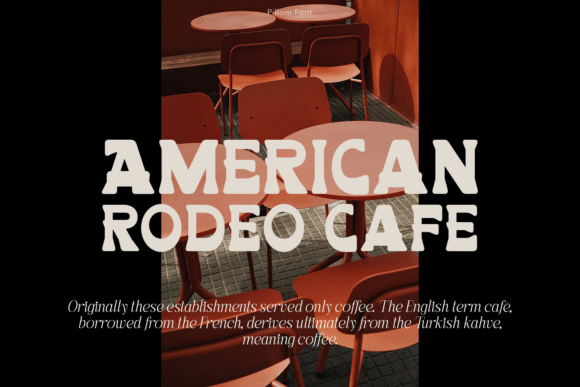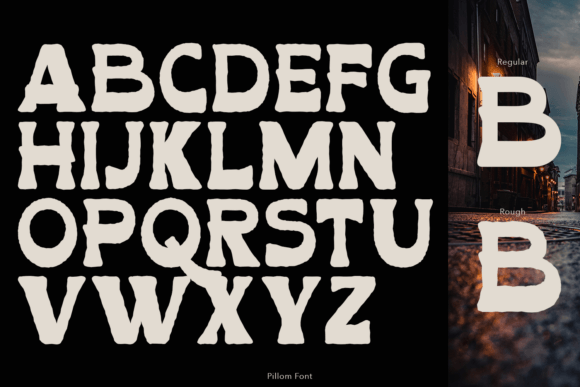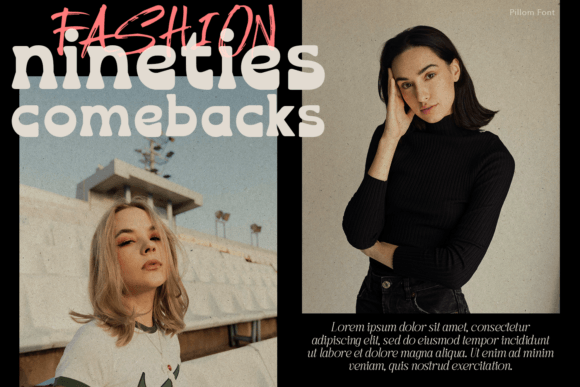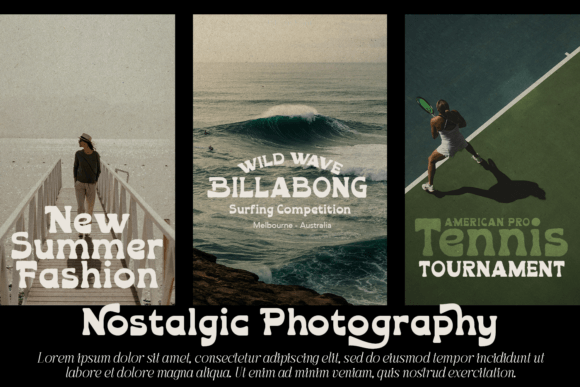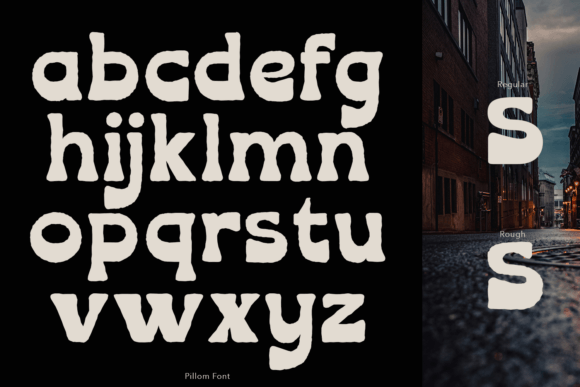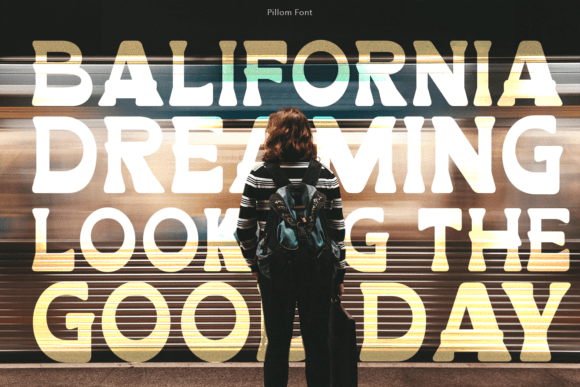
Introduction to Pillom Font
You know that moment when you’re working on a creative project, and you’re stuck searching for the perfect font to bring it all together? I’m sure many designers can relate. That’s where the Pillom Font comes in – a bold and playful vintage western typeface that’s sure to add a touch of authenticity to your design.
With its roots in the cowboy century, this font is perfect for designers looking to add a high-quality, retro feel to their projects. Whether you’re working on a design resource for a western-themed website or creating a poster for a country music festival, Pillom Font is an excellent choice. Plus, its transparent background makes it easy to layer with other design elements. And the best part? It’s available for a free download, making it a valuable resource for designers on a budget.
Key Features of Pillom Font
- Unique, modern design with a transparent background for flexibility
- Perfect for use in logos, branding, and other visual identity projects
- Includes a wide range of characters, including uppercase and lowercase letters, numbers, and punctuation
Honest Review: Pillom Font
I recently had the opportunity to work with the Pillom Font, and I must say it’s been a game-changer for my design projects. This high-quality font is a fantastic resource for any designer looking to add some unique flair to their creative project.
- ✨ Unique and modern design that’s perfect for minimalist projects
- ✨ Highly legible on a transparent background, making it ideal for web design
- ✨ Excellent for creating a professional and clean aesthetic in any design project
- ⚠️ Limited character set, which may not be suitable for projects requiring extensive text
Overall, I’m thoroughly impressed with the Pillom Font. Its unique design and high-quality performance make it a valuable addition to any design resource library. While it may have some limitations, I believe it’s well worth the download for any designer looking to elevate their creative project.
Experiment with different font sizes and styles to add depth and visual interest to your design. Use Pillom Font in combination with other high-quality fonts for a professional look.
Pillom Font is ideal for creative projects such as logos, brochures, and business cards. Its high quality and transparent background make it perfect for designing on a free download background.
Q: Is the Pillom Font suitable for use in digital designs?
Yes, the Pillom Font is designed to be highly legible and versatile, making it an excellent choice for digital designs. The font’s high-quality design ensures that it will look great on various screens and devices, from desktop computers to mobile phones. Whether you’re designing a website, mobile app, or social media campaign, the Pillom Font is a great addition to your design arsenal.